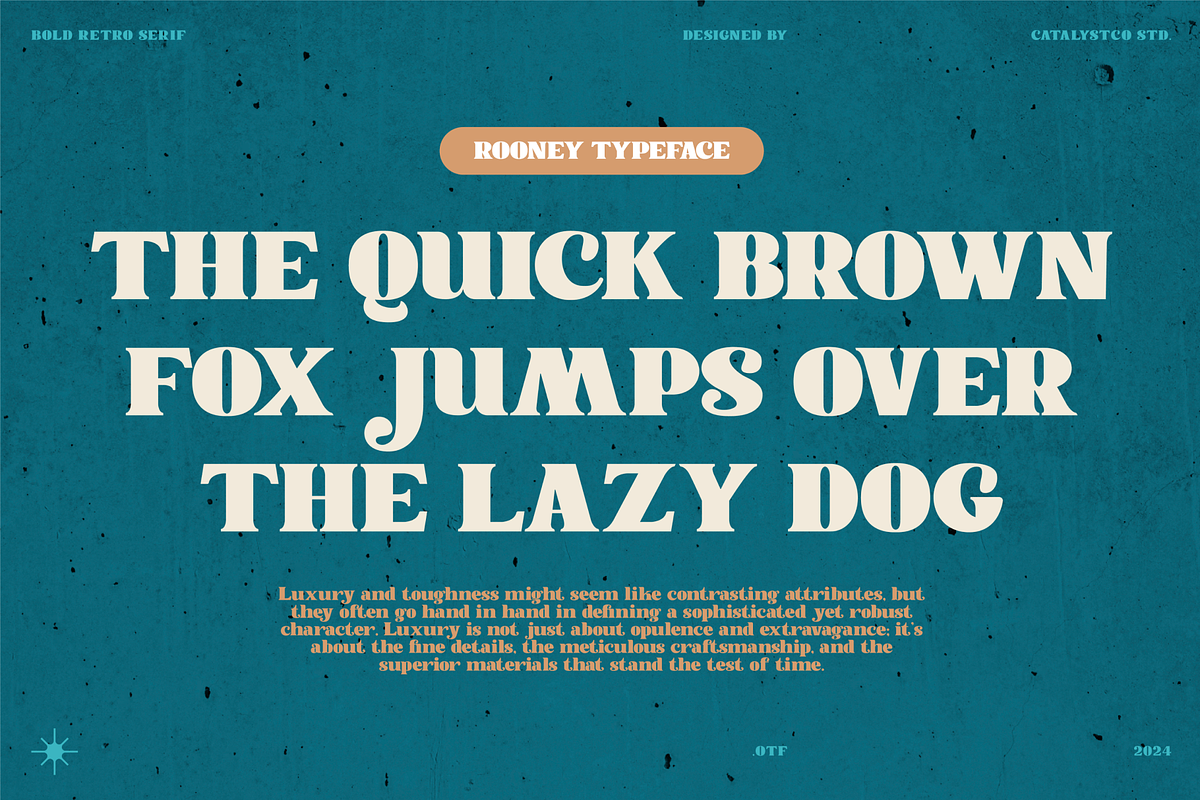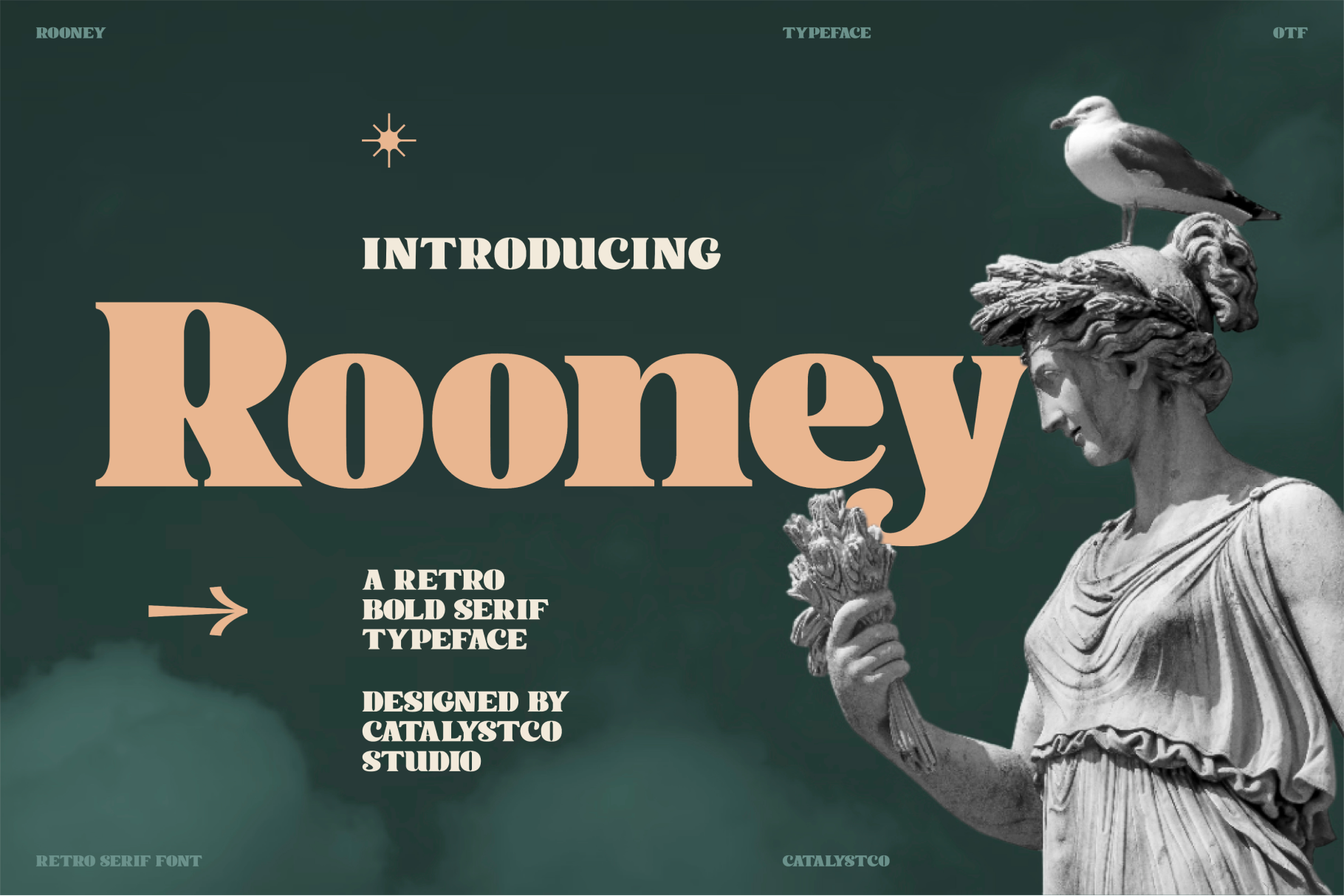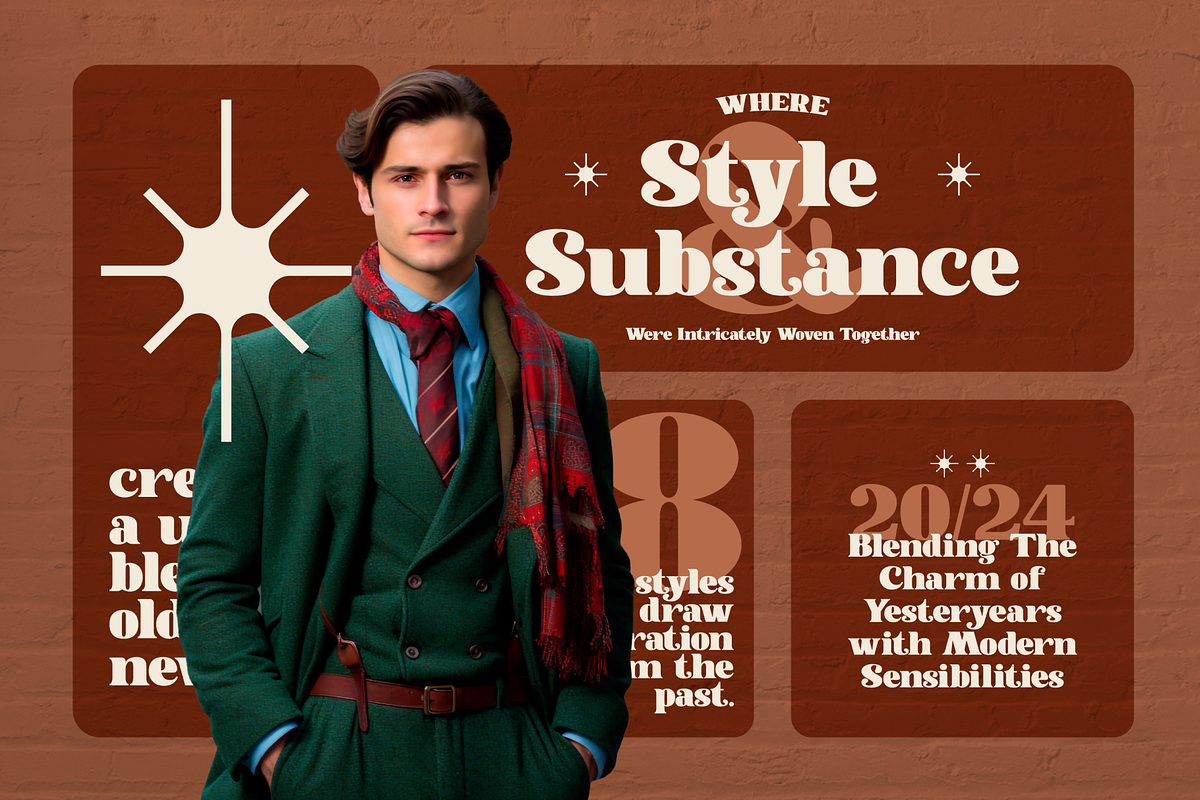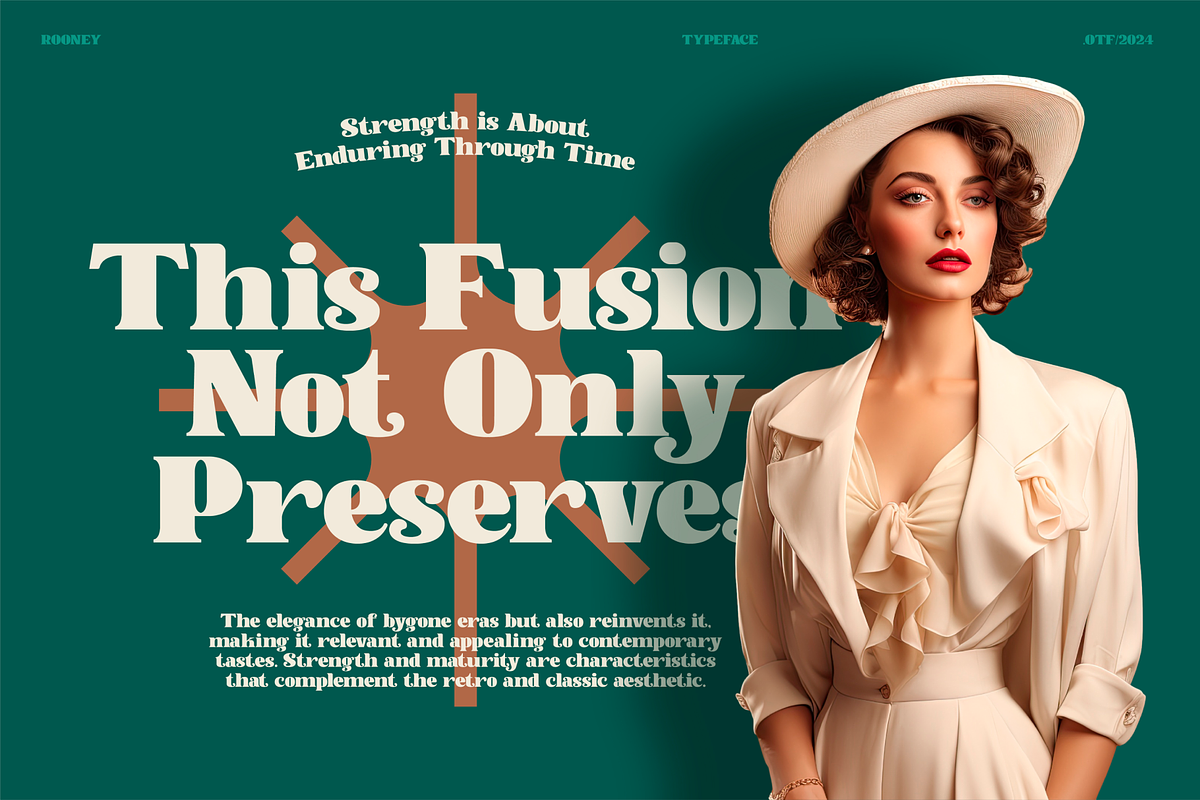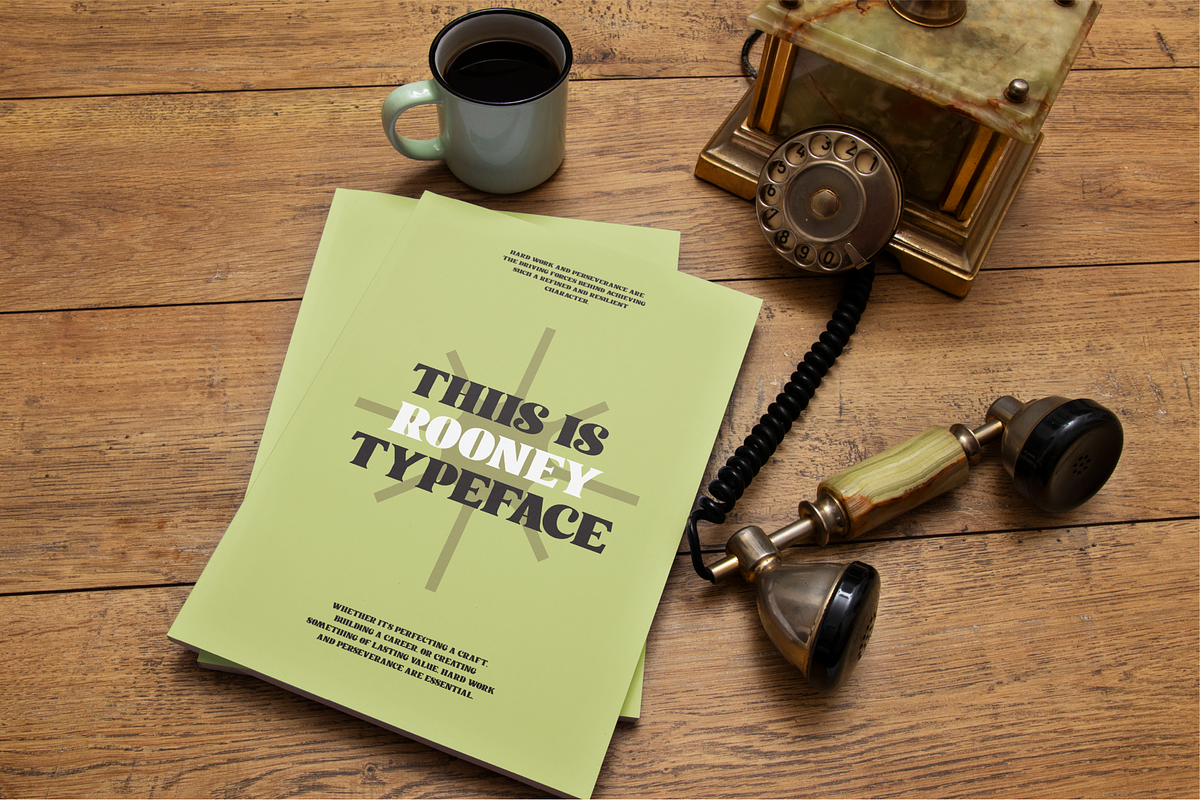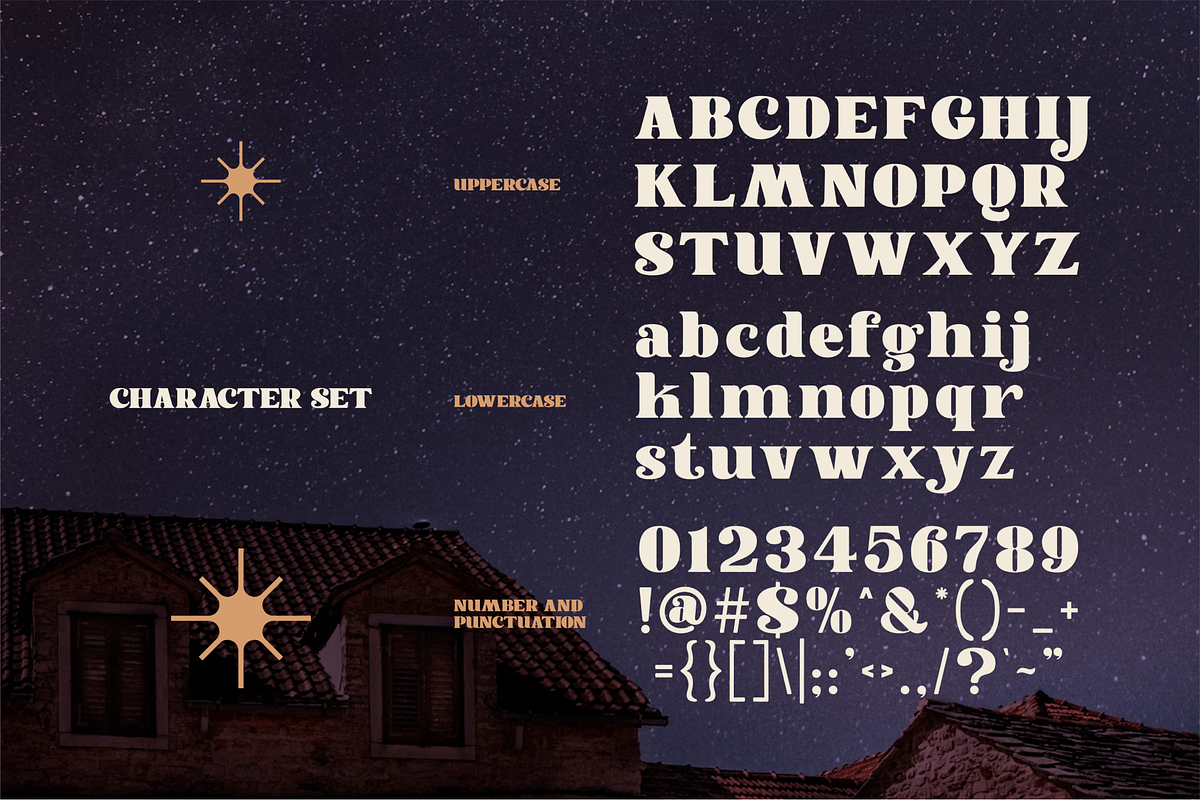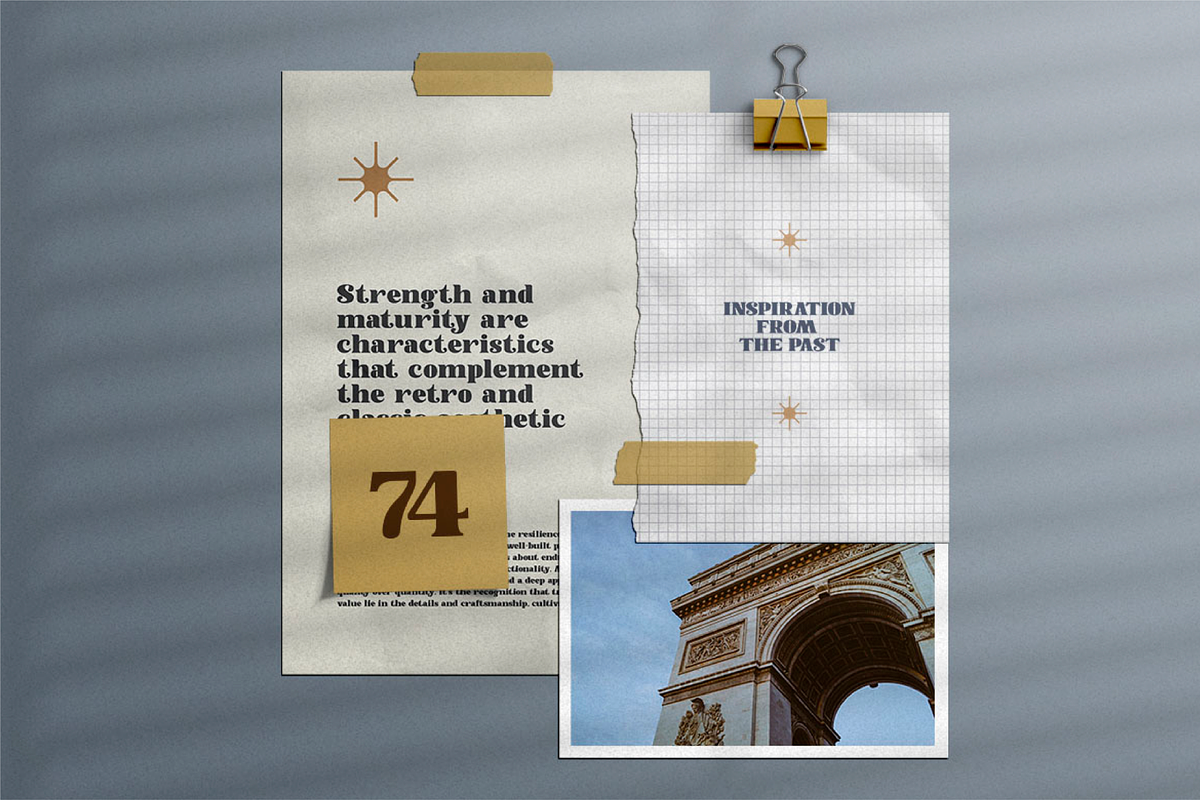
Rooney Retro Bold Serif Font
Rooney Retro Bold Serif Font typeface excellent used for the manufacture quote text, logotype, header magazine, and many more.
Main Features
- Ligatures & Alternate
- Numeral & Punctuations